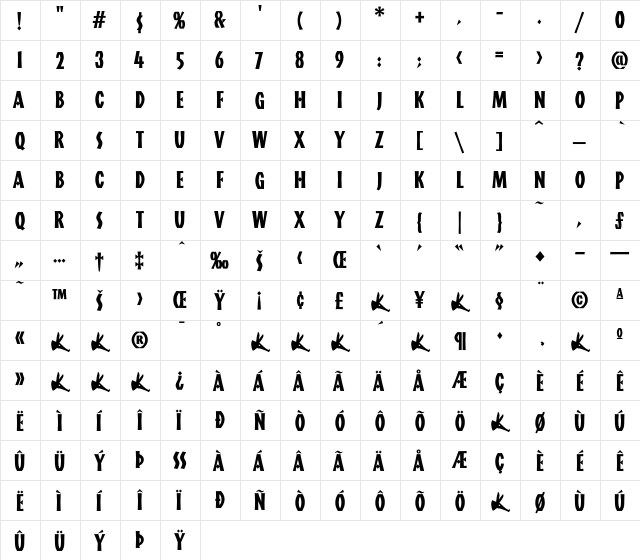
Aardvark Regular
Design Context for Aardvark Typeface
Aardvark is a composed and adaptable typeface that performs quietly and consistently across a wide range of design contexts.